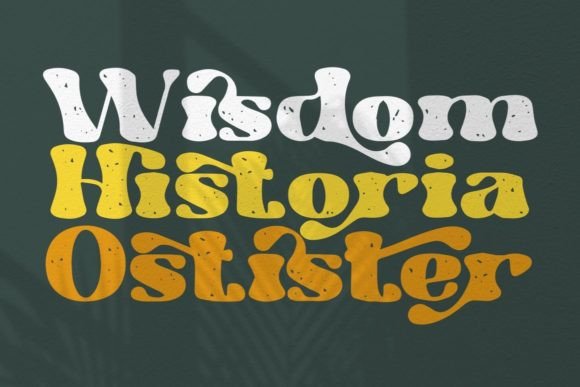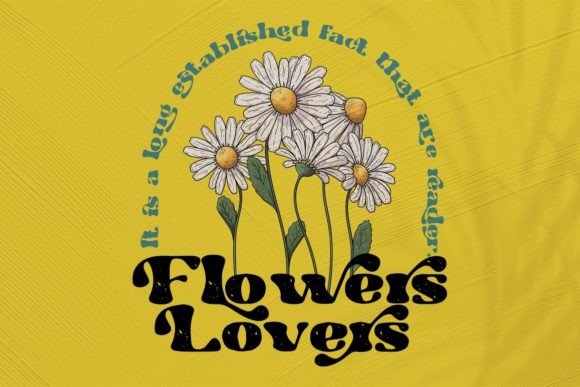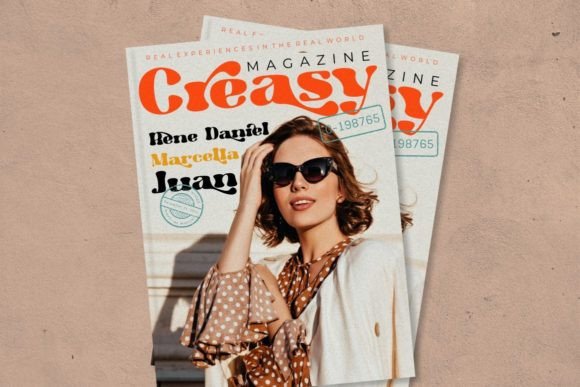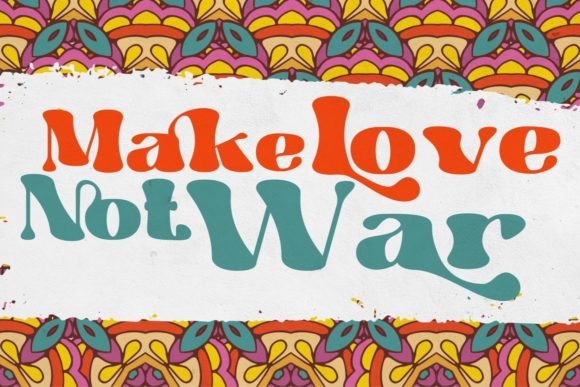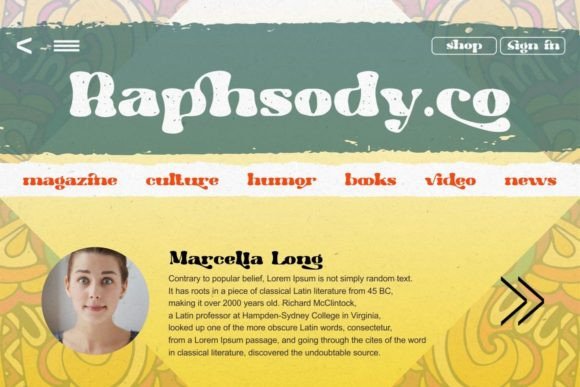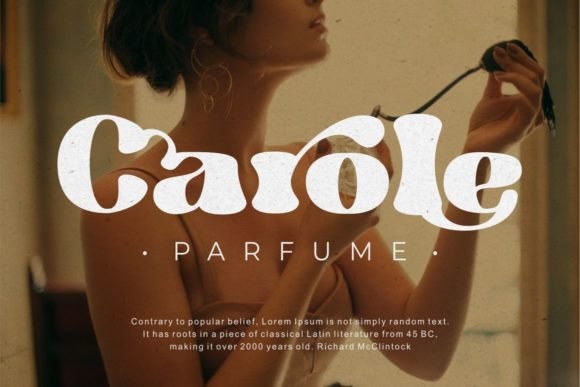
Introduction to Hippie Vintage Font
Hippie Vintage is a bold, groovy, vintage-style display font.
Key Features of Hippie Vintage Font
Why Choose Hippie Vintage Font?
Hippie Vintage Font offers exceptional quality and versatility, making it a valuable addition to your design toolkit. Whether you’re creating for personal projects or commercial use, Hippie Vintage Font delivers professional results.